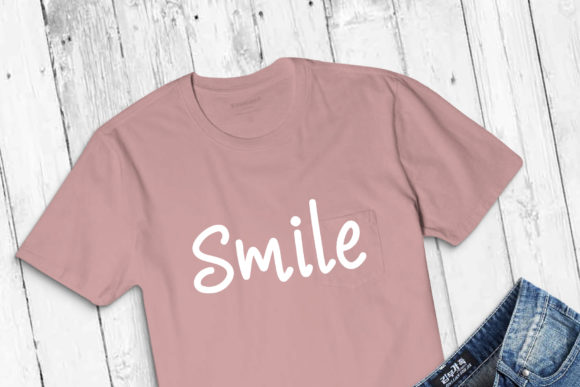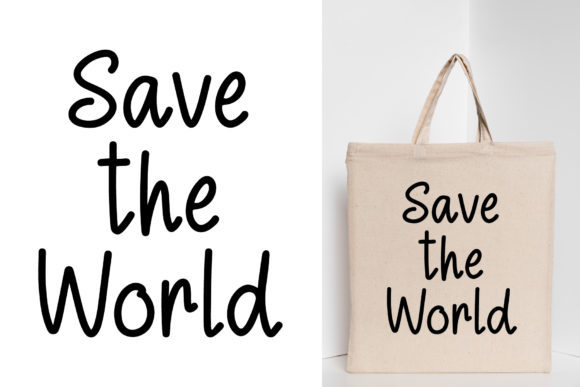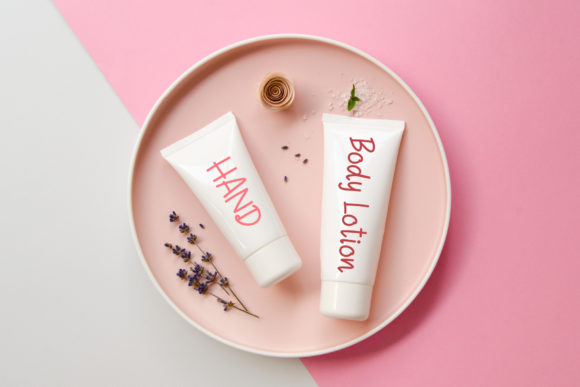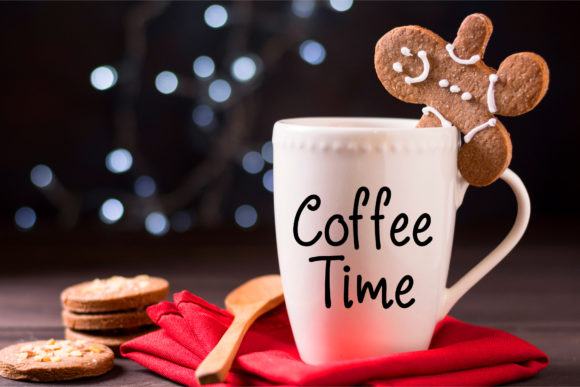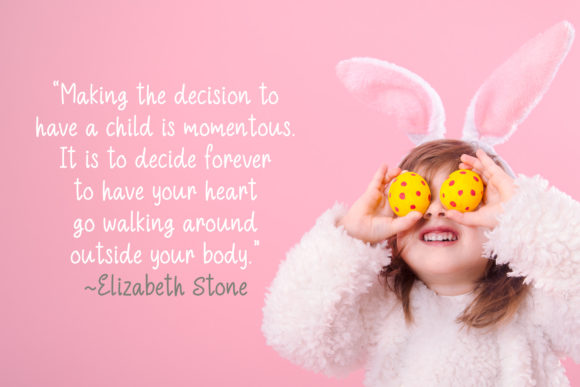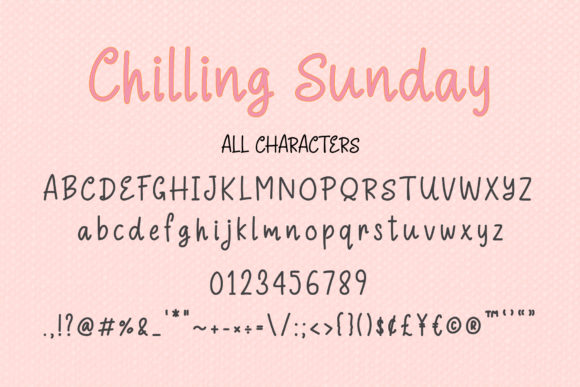
Introducing Chilling Sunday Font: The Perfect Addition to Your Design Arsenal
Are you tired of using the same old fonts for your social media posts, posters, and greeting cards? Look no further! Chilling Sunday Font is a cute and dainty handwritten font that’s sure to add a touch of playfulness and quirkiness to your designs. In this article, we’ll dive into the features and benefits of Chilling Sunday Font, and explore how it can elevate your design game.
What is Chilling Sunday Font?
Chilling Sunday Font is a beautiful, handwritten font that’s perfect for designers and crafters looking for a unique and eye-catching addition to their design toolkit. Its playful and quirky vibe makes it an excellent fit for a variety of design projects, from social media posts and posters to cards and greeting cards.
Key Features of Chilling Sunday Font
- Cute and Dainty: Chilling Sunday Font is a sweet and delicate font that’s sure to capture the attention of your audience.
- Playful and Quirky: This font has a fun and carefree vibe that’s perfect for designers who want to add a touch of personality to their designs.
- Handwritten: Chilling Sunday Font is a handwritten font that adds a personal touch to your designs.
- Versatile: This font is suitable for a wide range of design projects, from social media posts and posters to cards and greeting cards.
Benefits of Using Chilling Sunday Font
So, why should you choose Chilling Sunday Font for your design projects? Here are just a few benefits:
- Adds Personality: Chilling Sunday Font adds a touch of personality and whimsy to your designs, making them stand out from the crowd.
- Easy to Read: This font is clear and easy to read, making it perfect for designs that require a lot of text.
- Customizable: Chilling Sunday Font can be customized to fit your design style, making it easy to incorporate into your existing brand.
- Time-Saving: With Chilling Sunday Font, you can create professional-looking designs in no time, saving you time and effort.
How to Use Chilling Sunday Font in Your Designs
Using Chilling Sunday Font in your designs is easy! Here are a few tips to get you started:
- Pair it with Other Fonts: Combine Chilling Sunday Font with other fonts to create a unique and visually appealing design.
- Use it for Headings: Chilling Sunday Font is perfect for headings and titles, adding a touch of personality to your designs.
- Add it to Your Social Media Posts: Use Chilling Sunday Font to add a touch of whimsy to your social media posts and make them stand out.
- Create Custom Cards and Posters: With Chilling Sunday Font, you can create custom cards and posters that are sure to impress.
Who is Chilling Sunday Font for?
Chilling Sunday Font is perfect for:
- Graphic Designers: Add a touch of personality to your designs with Chilling Sunday Font.
- Crafters: Use Chilling Sunday Font to create custom cards, posters, and other craft projects.
- Small Business Owners: Elevate your brand with Chilling Sunday Font, perfect for social media posts, flyers, and more.
- Social Media Influencers: Add a touch of whimsy to your social media posts with Chilling Sunday Font.
Chilling Sunday Font is a beautiful, handwritten font that’s perfect for designers and crafters looking to add a touch of personality to their designs. With its playful and quirky vibe, this font is sure to capture the attention of your audience. Whether you’re creating social media posts, posters, cards, or greeting cards, Chilling Sunday Font is the perfect addition to your design arsenal.